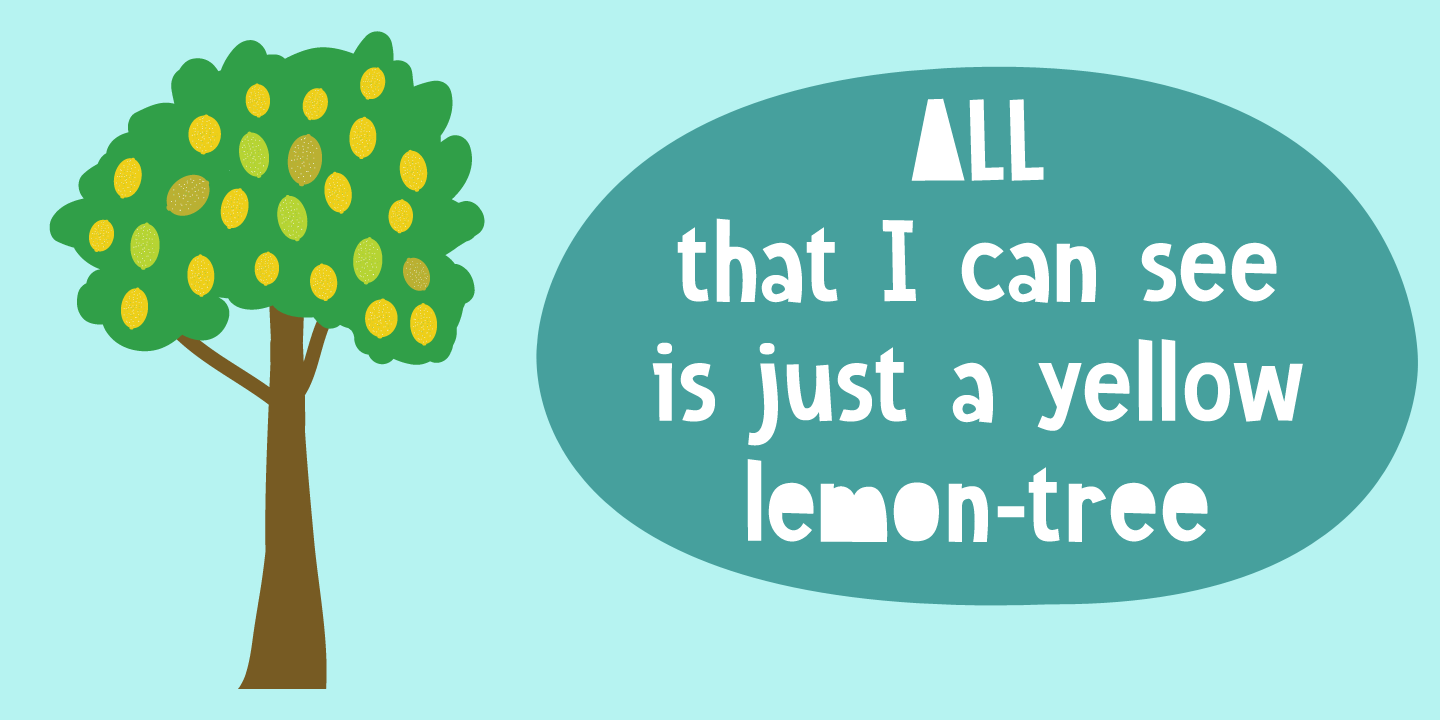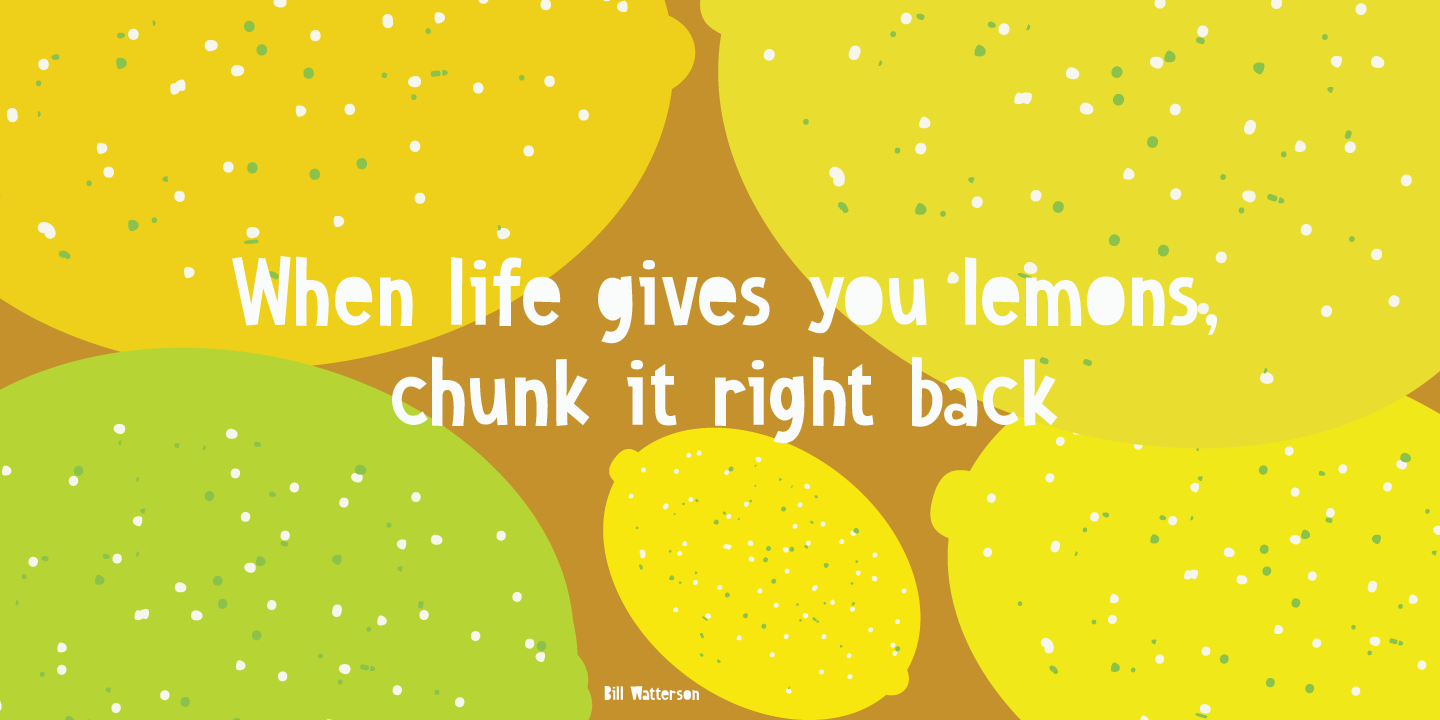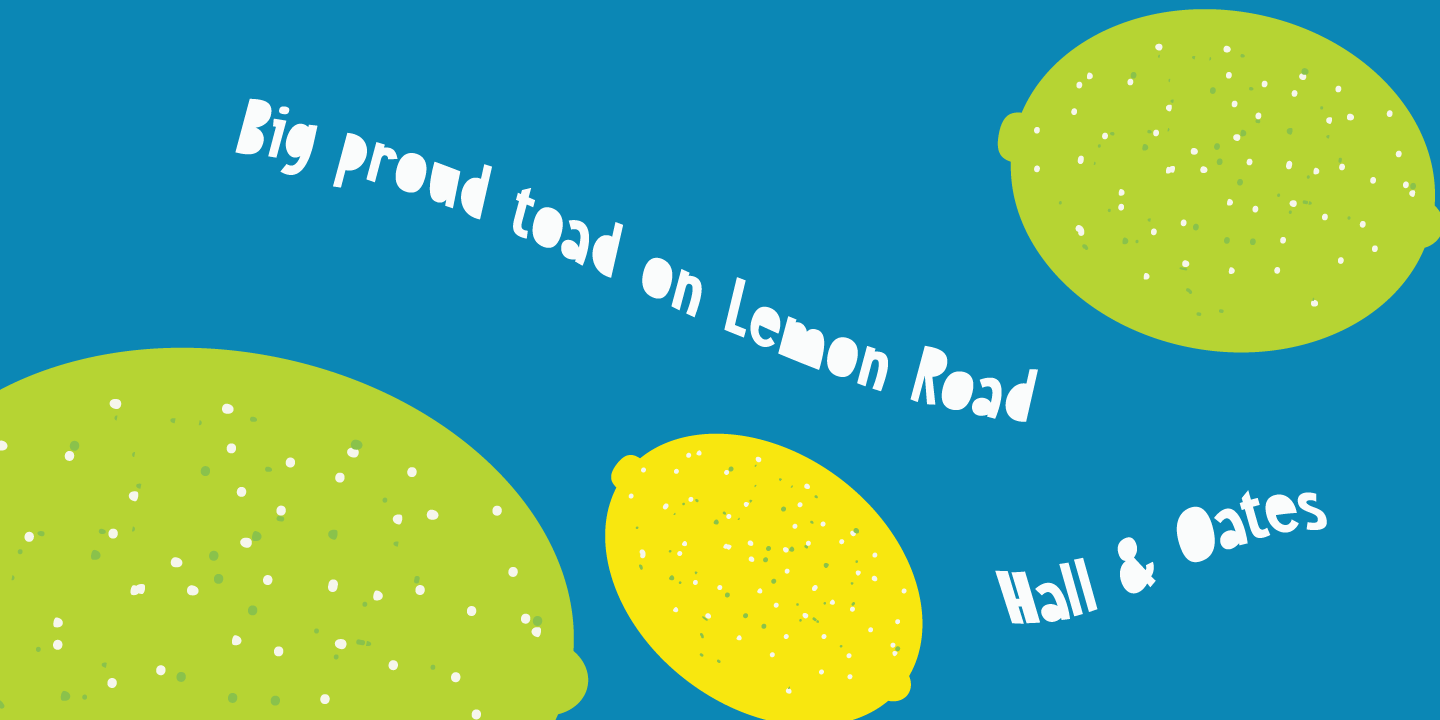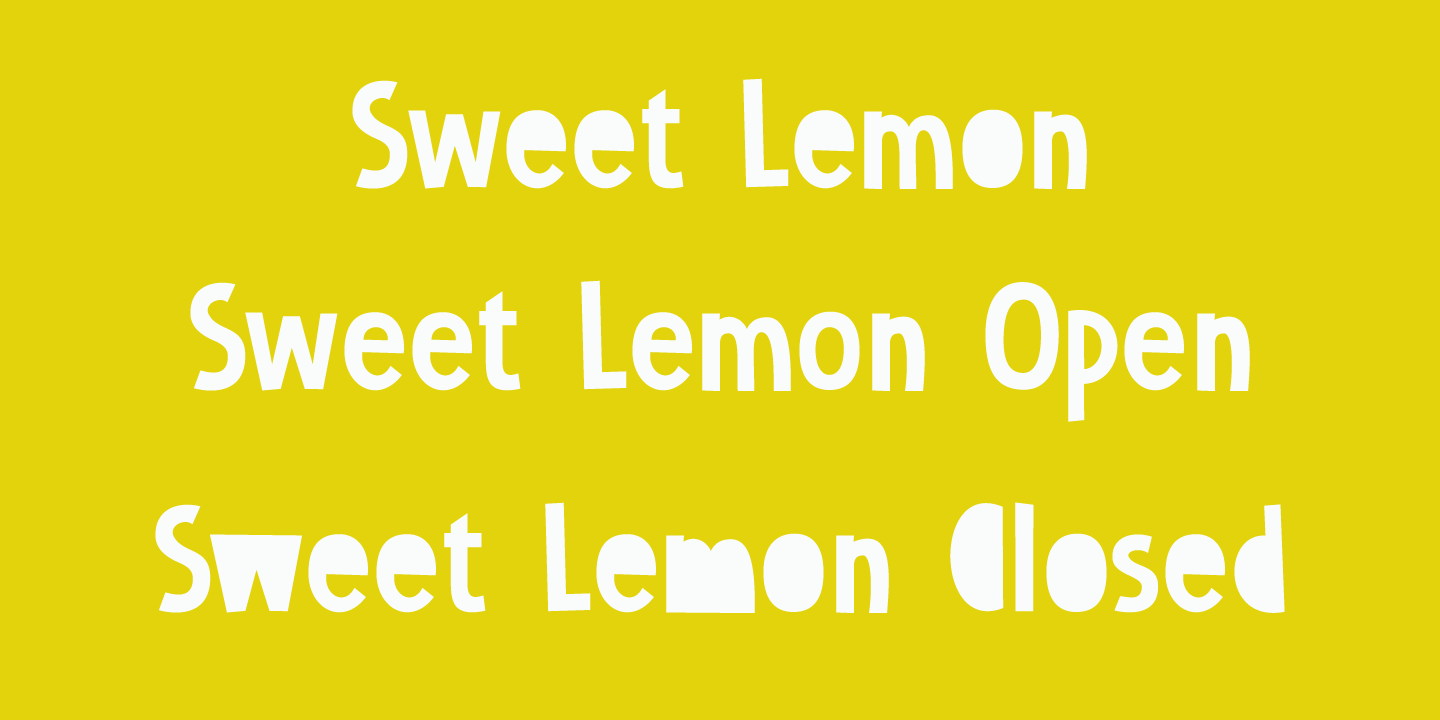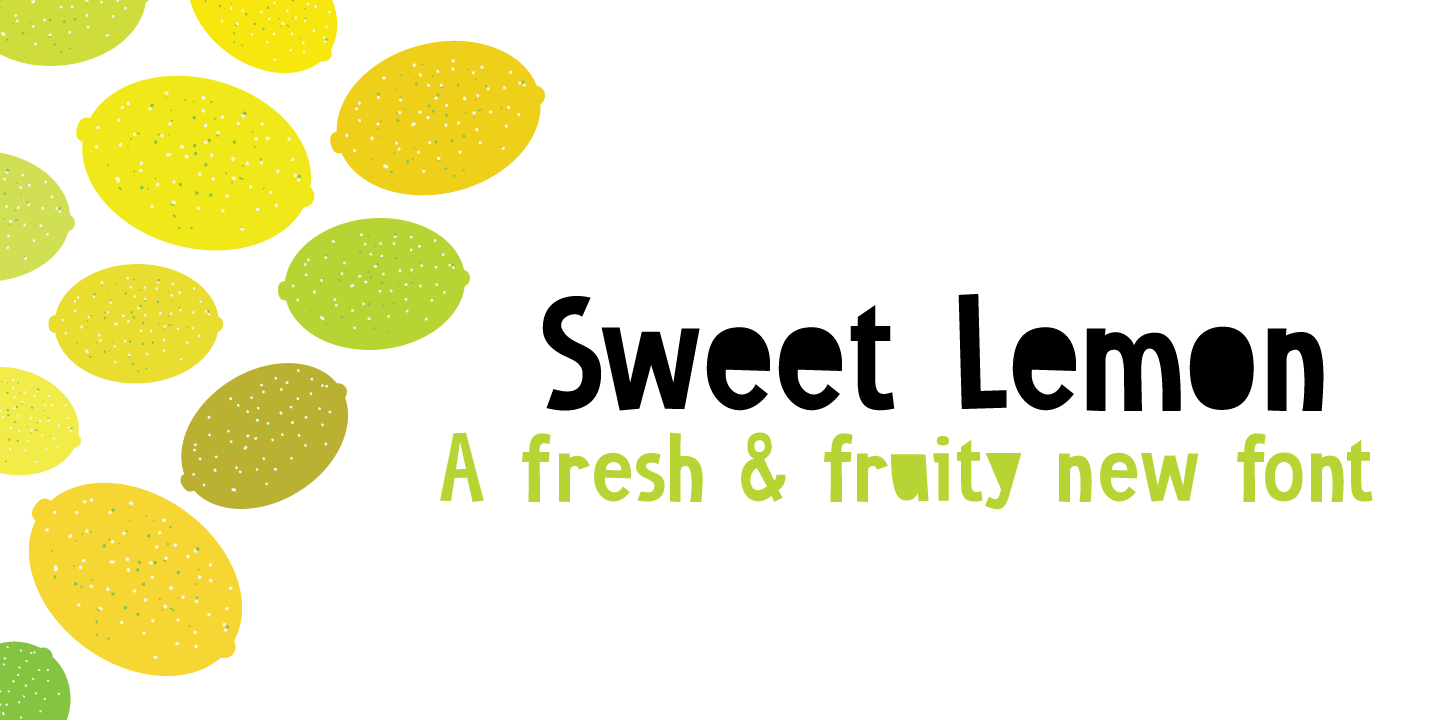
About Sweet Lemon
Sweet Lemon started off as something completely different, but I screwed up and closed one the the glyphs by accident. I kind of liked it, so I made three distinct fonts, each one with its own Italic style.